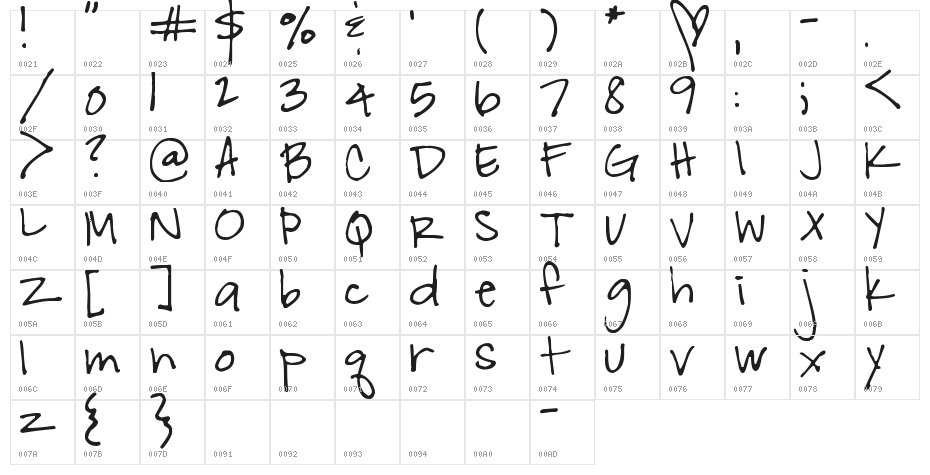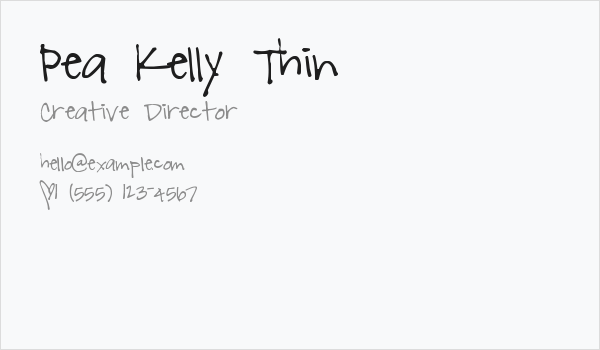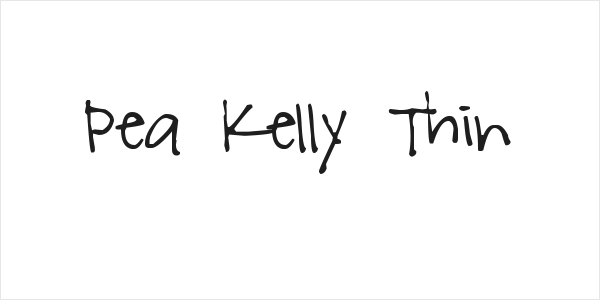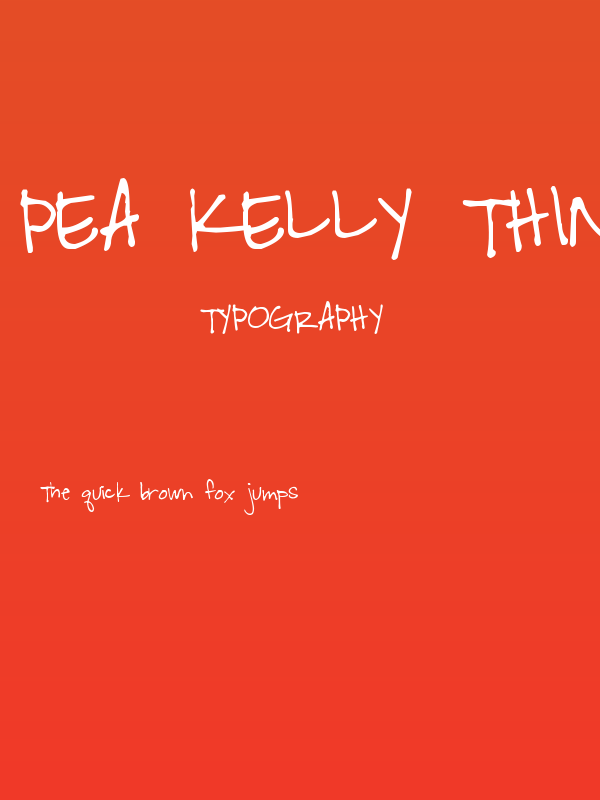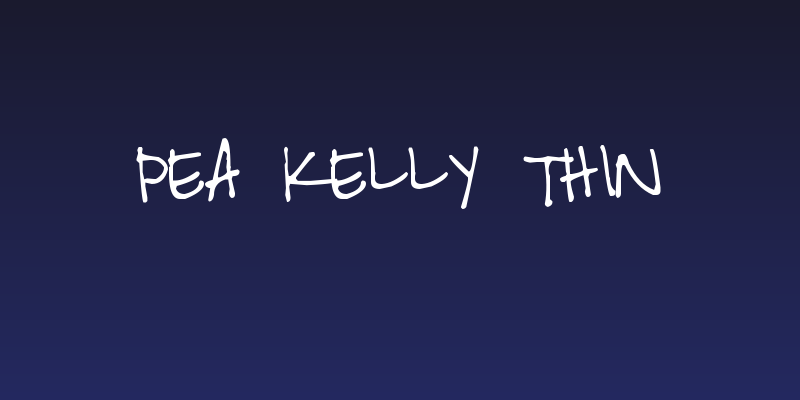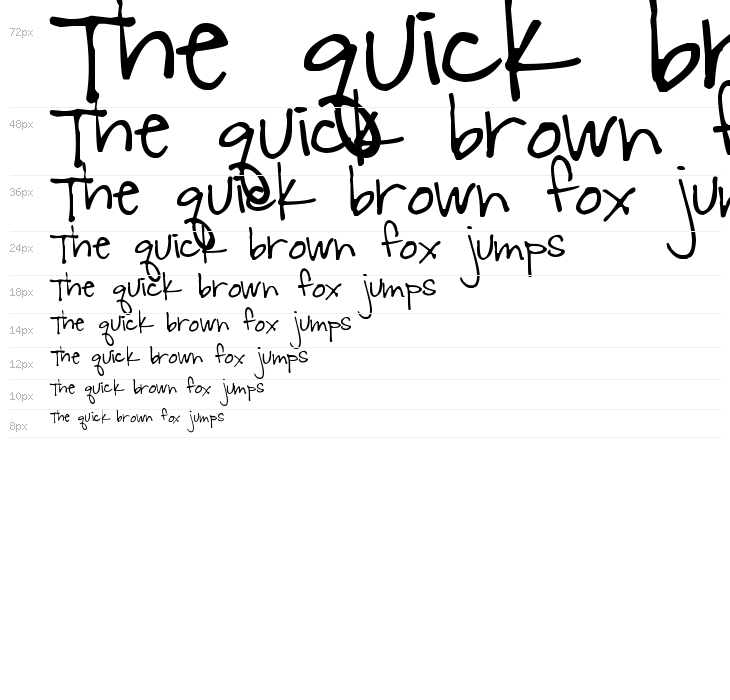
Pea Kelly Thin Font
Pea Kelly Thin Description
This font exudes a casual, handwritten style, characterized by its playful and informal appearance. The letters are slightly slanted, giving a dynamic and lively feel. The strokes are consistent in thickness, maintaining a uniform look throughout. The uppercase and lowercase letters are distinct, with the lowercase letters showing a more pronounced cursive influence. The numbers and special characters follow the same playful style, making the font versatile for various uses. Its overall appearance is approachable and friendly, making it suitable for projects that require a personal touch.
| Use Case | Headlines, Informal text, Personal projects |
| Proposed Projects | Ideal for greeting cards, personal blogs, informal invitations, and playful branding. |